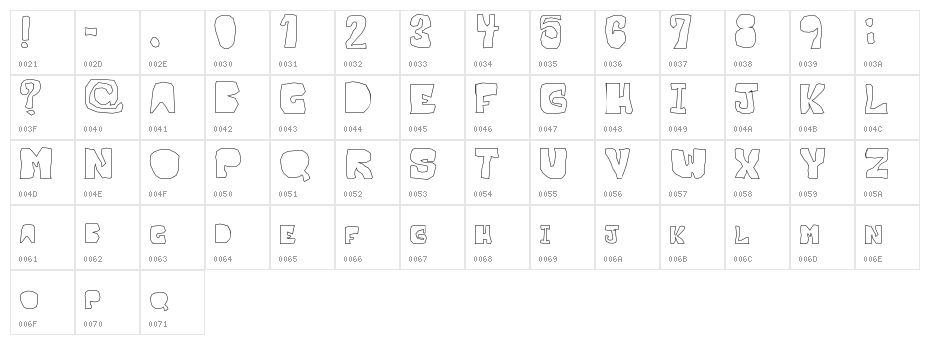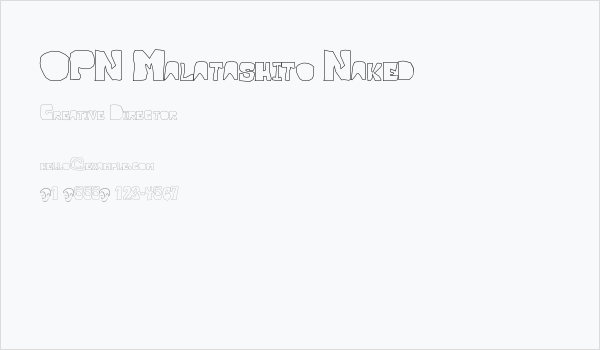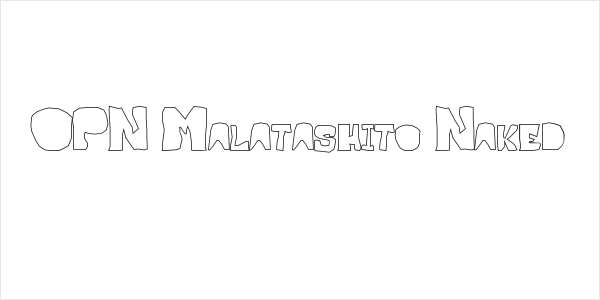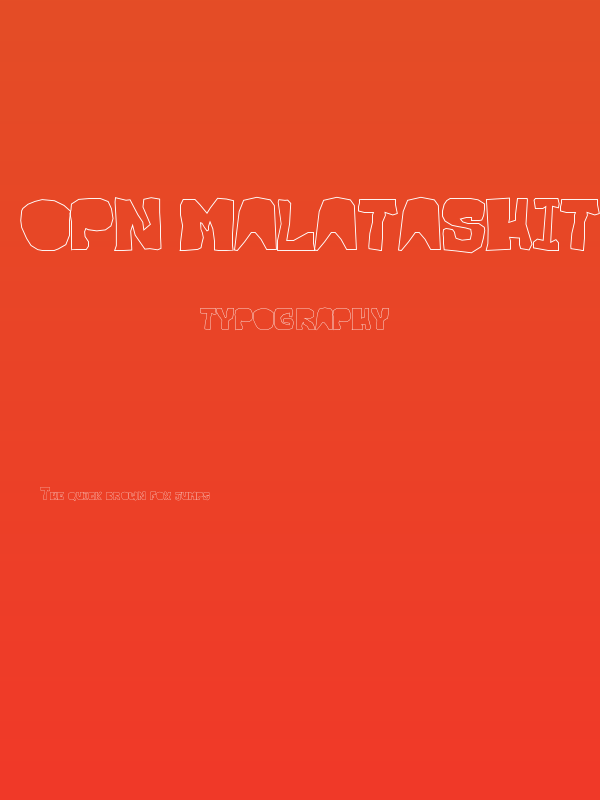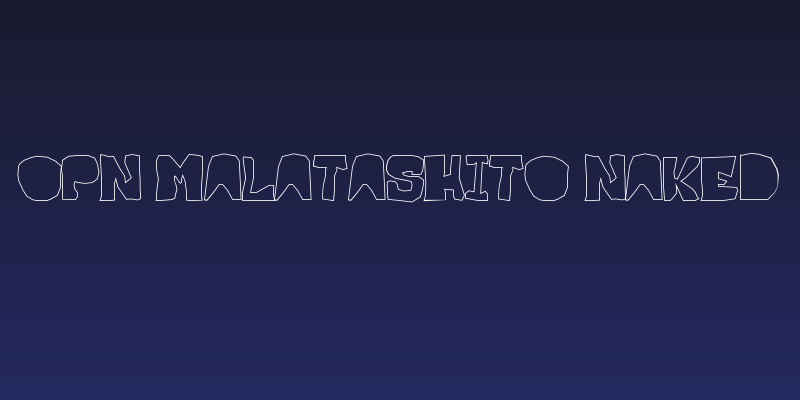
OPN Malatashito Naked Font
OPN Malatashito Naked Description
This font features a bold, geometric design with a playful and artistic flair. Each character is outlined with a thick, uneven stroke, giving it a hand-drawn appearance. The letters are constructed with angular shapes and irregular edges, creating a unique and dynamic look. The uppercase and lowercase letters maintain a consistent style, while the numbers and special characters follow the same design principles, ensuring a cohesive appearance. This font stands out due to its distinctive, abstract form, making it ideal for creative and unconventional projects.